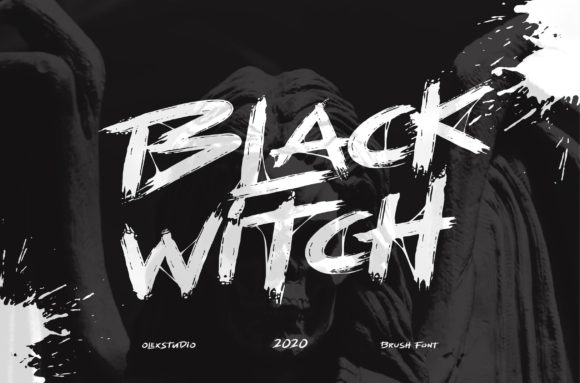
The Magic of Black Witch Font: A Designer’s Dream Come True
I’ll never forget the time I was working on a project for a client who wanted a bold, eye-catching font to make their brand stand out. I scoured the internet for hours, trying to find the perfect fit, but nothing seemed quite right. That was until I stumbled upon the Black Witch font. With its rough texture and dramatic flair, it was love at first sight! In this article, I’ll share my experience with Black Witch, its features, and how to make the most of it in your designs.
First Impressions: A Bold and Dramatic Display Font
Black Witch is a bold and dramatic display font that features a rough texture, making it perfect for designs that need to stand out. Its unique texture gives it a distinctive look that’s sure to grab attention. Whether you’re a designer, crafter, or creative hobbyist, this font is sure to add a touch of magic to your projects.
- ✨ Unique texture: The rough texture of Black Witch adds a level of depth and interest to any design.
- ✅ Bold and dramatic: This font is perfect for making a statement and grabbing attention.
- 💡 Versatile: Despite its bold nature, Black Witch can be used for a variety of design projects, from posters to social media graphics.
While Black Witch is an amazing font, there are a few things to keep in mind:
- 🤔 Legibility at small sizes: Due to its bold nature and rough texture, Black Witch can be difficult to read at small sizes. It’s best used at larger sizes where its unique texture can shine.
- ⚠️ Limited use in body text: While Black Witch is perfect for headings and titles, it’s not the best choice for body text due to its boldness and texture.
- Take advantage of OpenType features like glyphs and stylistic alternates to add more variety to your text.
The Story Behind Black Witch
Black Witch was designed with the intention of creating a bold, eye-catching font that would add a touch of drama to any design. Inspired by the mysterious and magical, this font is perfect for designers who want to add a bit of whimsy to their work.
| Font Name | Black Witch Font |
| Author | Olexstudio |
Q: What type of designs is Black Witch best suited for?
A: Black Witch is perfect for designs that need a bold, eye-catching font, such as posters, social media graphics, and titles.
Q: Is Black Witch a difficult font to read?
A: Due to its bold nature and rough texture, Black Witch can be difficult to read at small sizes. It’s best used at larger sizes where its unique texture can shine.